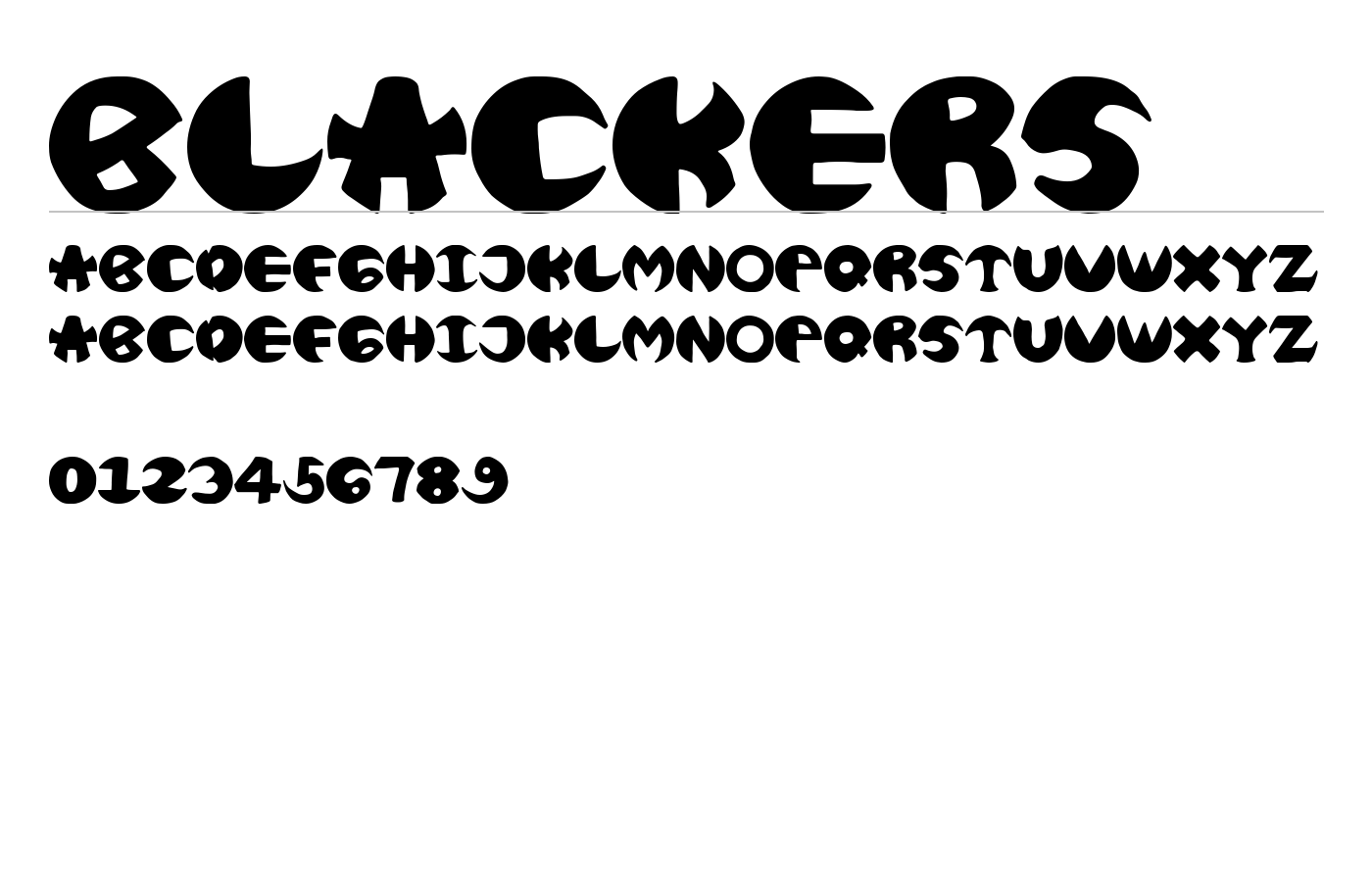
BLACKERS is a bold, playful sans serif font with chunky, irregular shapes that give it a fun and quirky personality. Its heavy weight and rounded, soft edges make it ideal for eye-catching headlines and creative projects that want to convey a friendly, informal vibe. This font works great for posters, logos, and branding aimed at youthful or artistic audiences looking for a distinctive and approachable style.
BLACKERS Font
About BLACKERS Font
| Font family | BLACKERS Font |
| Designer | Oziel89 Studio |